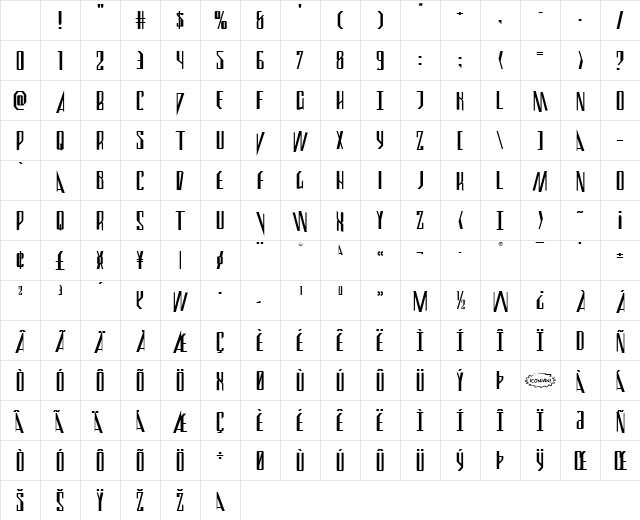
Complete Archnemesis Expanded Regular glyph index. Displaying only characters natively supported by Archnemesis Expanded Regular font.
Archnemesis Expanded is a composed and adaptable typeface that performs quietly and consistently across a wide range of design contexts.